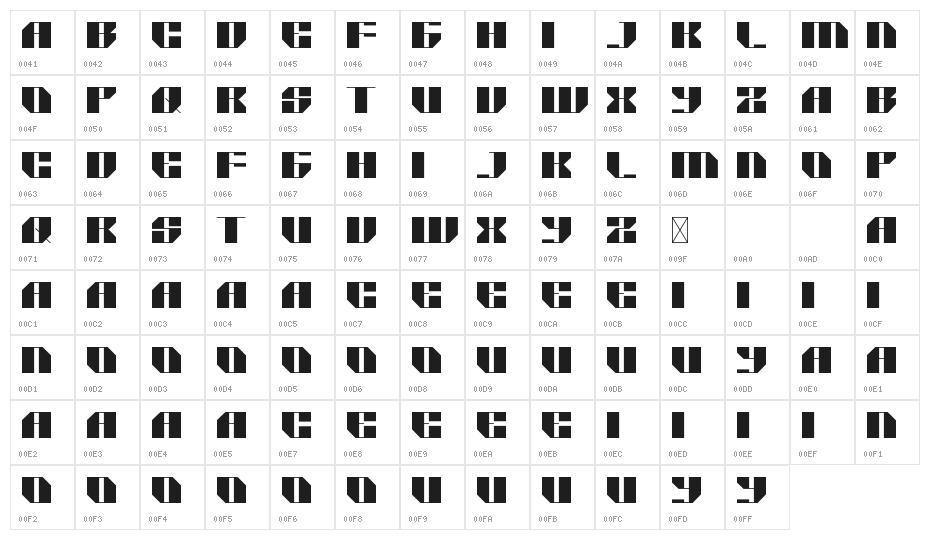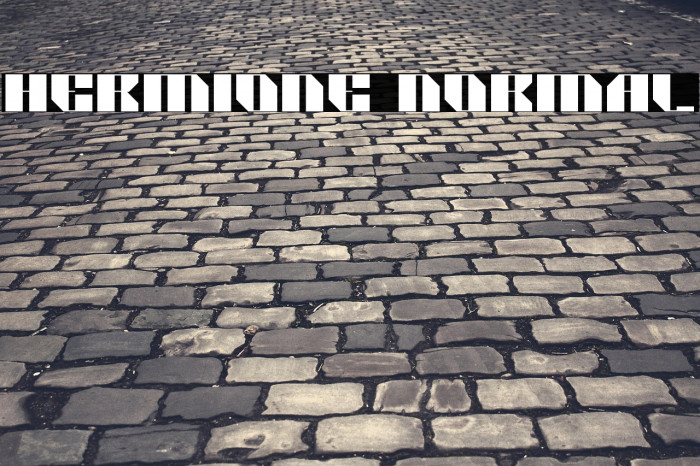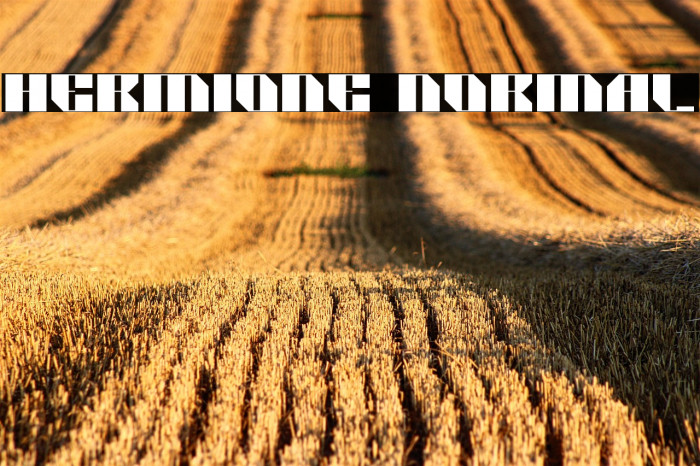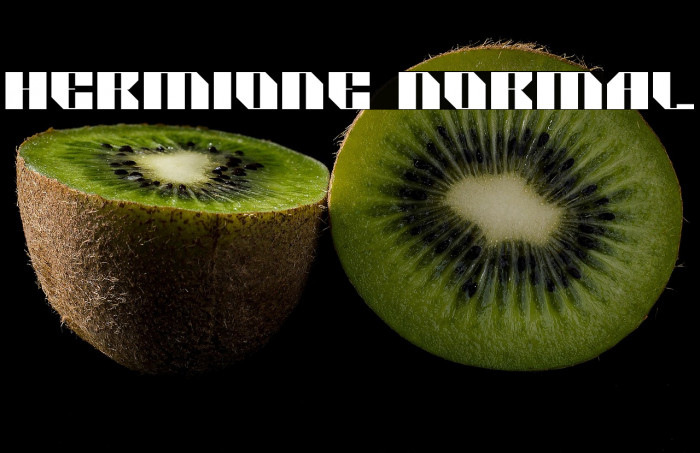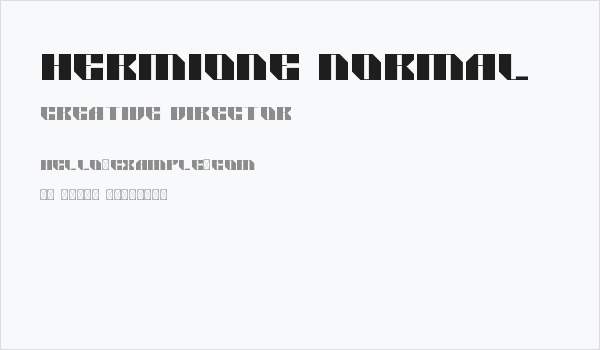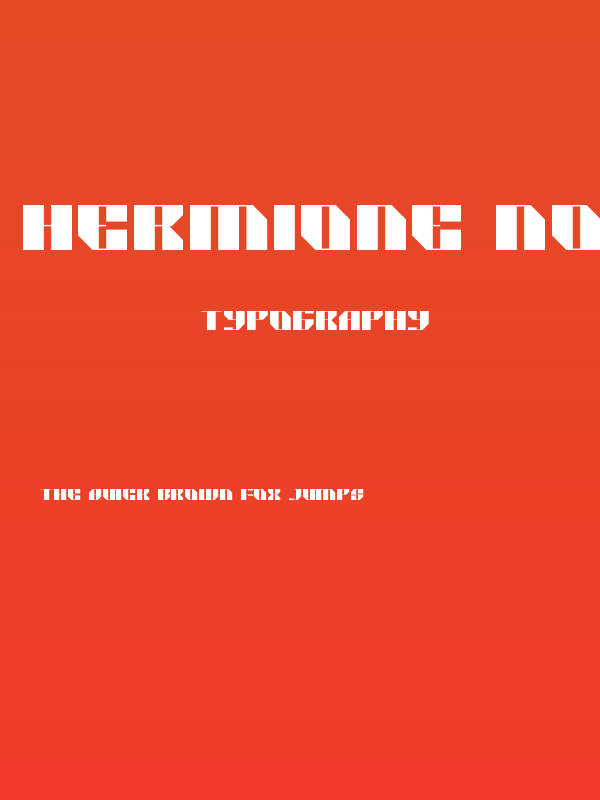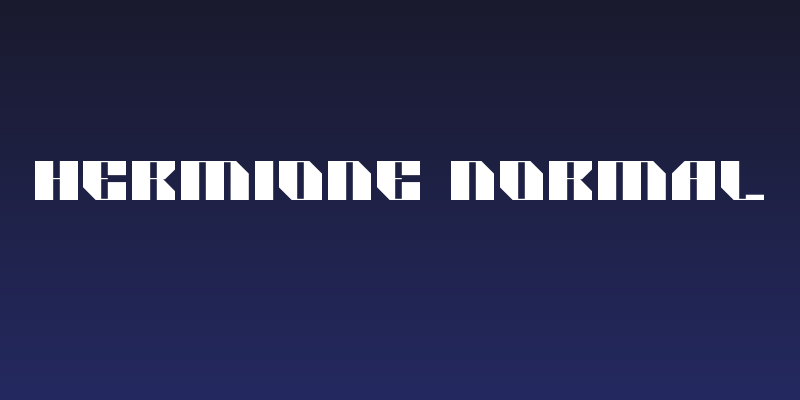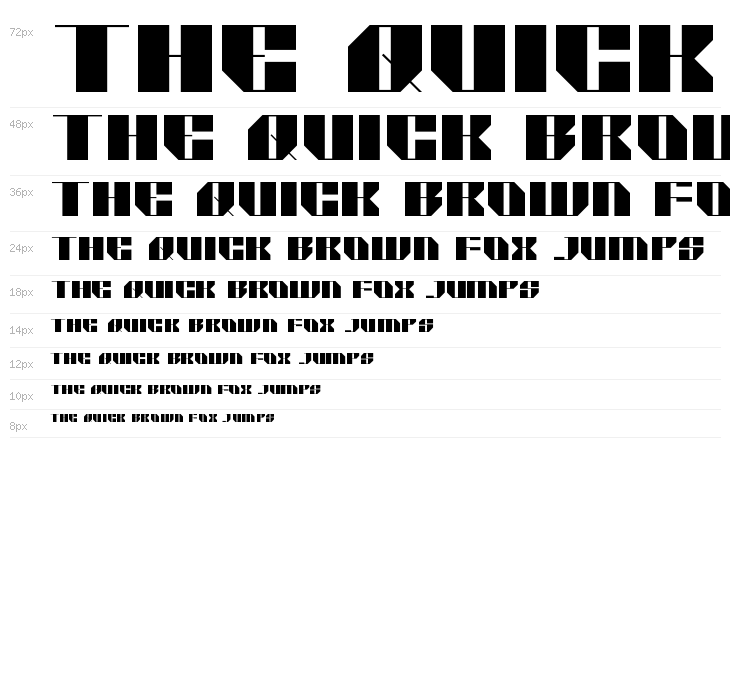
HERMIONE Normal Font
HERMIONE Normal Description
This font features a bold and geometric design with sharp angles and a blocky appearance. The characters are constructed with a modern, industrial aesthetic, emphasizing straight lines and angular cuts. The uppercase letters are particularly striking, with a uniform height and width that create a cohesive look. The lowercase letters maintain the same geometric style, offering a consistent visual identity across the alphabet. The numerals and special characters are designed to match the bold and angular theme, ensuring a seamless integration into any design project. This font's unique style makes it ideal for attention-grabbing headlines and logos.
| Proposed Projects | Ideal for use in branding, logos, posters, and any project requiring a bold, modern statement. |